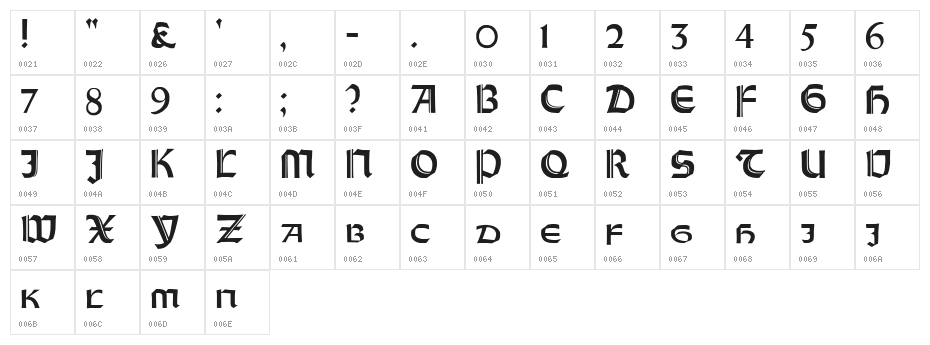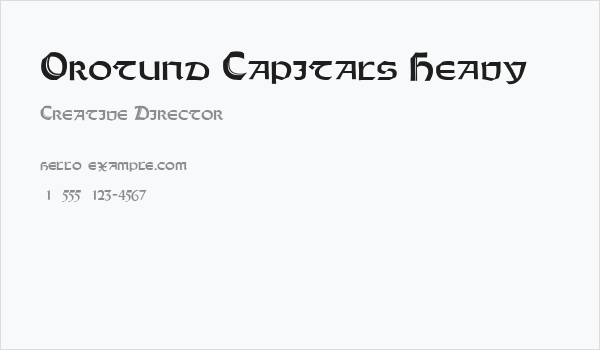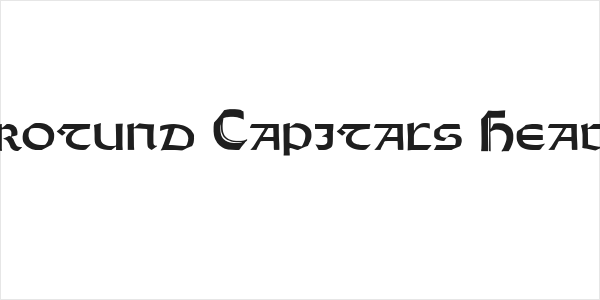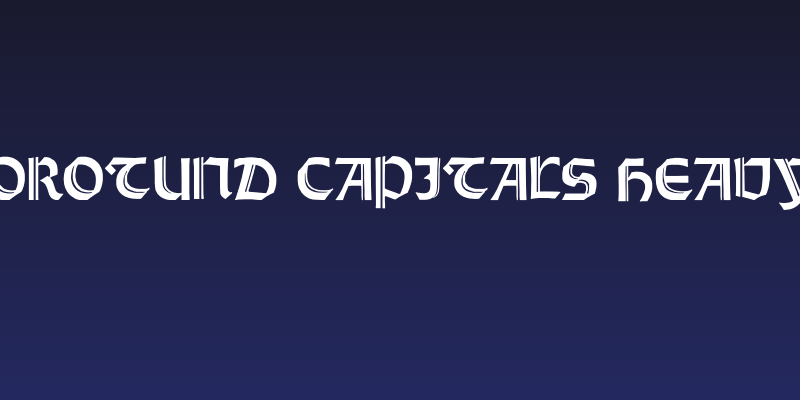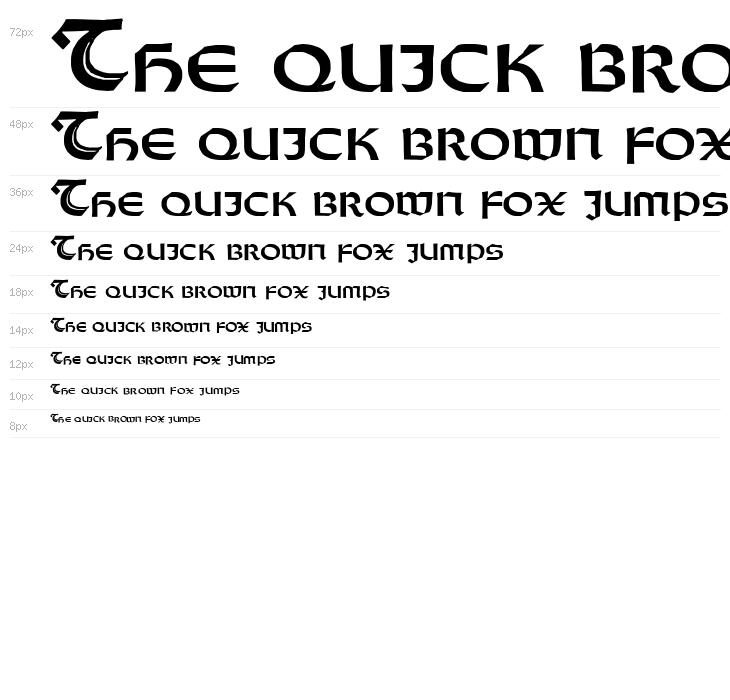
Orotund Capitals Heavy Font
Orotund Capitals Heavy Description
This font presents a bold and striking appearance with its heavy, angular strokes and sharp edges. The characters exhibit a unique blend of geometric and gothic influences, creating a dramatic and imposing style. The uppercase letters are particularly prominent, with a strong vertical emphasis and intricate detailing. The lowercase letters maintain the same boldness, ensuring consistency across text. Numbers and special characters are designed with the same attention to detail, making them stand out. This font is ideal for projects that require a strong visual impact.